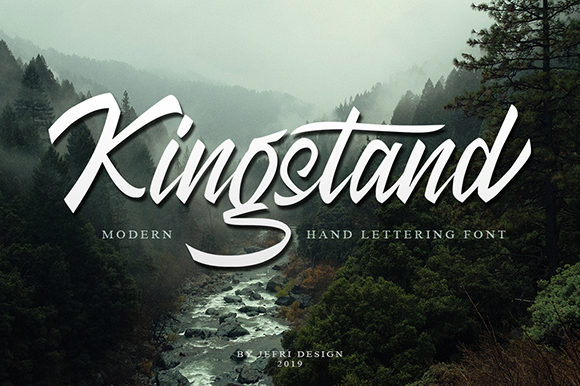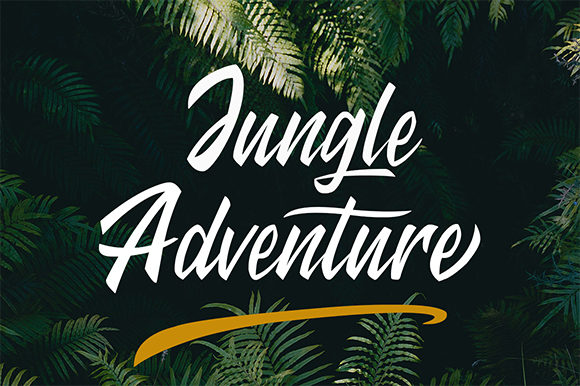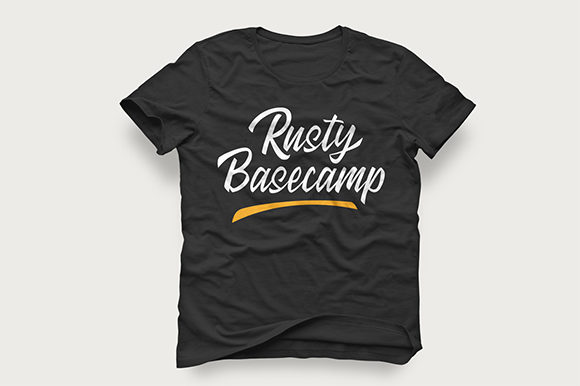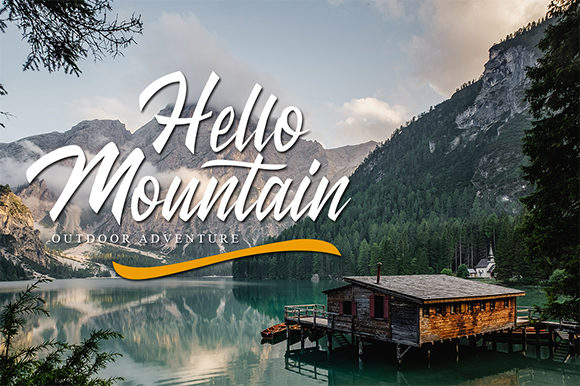
HomeScript FontsKingstand Font Script Fonts Kingstand Font FacebookXPinterestWhatsApp Kingstand Font Poster 2 Kingstand Font Poster 3 Kingstand Font Poster 4 Kingstand Font Poster 5 Kingstand Font Poster 6 About Kingstand Font Kingstandupdates classic calligraphy with a modern style. Get inspired by its unique look! DOWNLOAD ON CREATIVE FABRICAThis font is sold and delivered by Creative Fabrica. Font Canyon may earn a commission if you buy through this link. People also explored Gutierha Pattery Font Magic Snowy Font Stable Font Snowman Font Katana Font Fantasy Orphan Font Rheinalita Font Salmanda Hannah Font Stay Positive Font 352 0 TagsKingstand Font Previous articleZahiya FontNext articleFadeline Font LEAVE A REPLY Cancel reply Comment: Please enter your comment! Name:* Please enter your name here Email:* You have entered an incorrect email address! Please enter your email address here Website: Save my name, email, and website in this browser for the next time I comment. Personal Use Free Sybil Green Personal Use Free Read more about this font Hanifah Personal Use Free Read more about this font Hillgates Personal Use Free Read more about this font New Amsterdam Personal Use Free Read more about this font BLOG How to Install and Use Fonts on Windows, macOS, and Web Projects How to Install and Use Fonts on Windows, macOS, and Web Projects Fonts are a crucial part of design and branding. Whether you’re designing a... Exploring Font Trends Best Fonts for YouTube Videos: Make Your Thumbnails Stand Out To increase your work productivity, choose the most readable fonts.